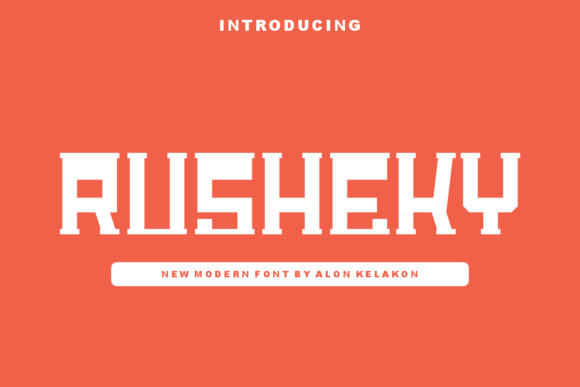
Journey into the realm of expressive typography with Rusheky Font, an exquisitely crafted display font that captivates audiences with its bold and striking presence. Designed by the visionary alonkelakon, Rusheky is not merely a collection of letters; it's an artistic odyssey that breathes life into your creative endeavors.
Unleash the boundless potential of Rusheky, a versatile font family that effortlessly adapts to a symphony of design projects. Whether you seek to craft captivating movie posters or ignite passion with album covers, Rusheky's dynamic character shines through, leaving an indelible mark on every project it graces.
Visualize your words taking center stage, demanding attention with Rusheky's commanding presence. Its bold strokes dance across the page, captivating audiences with their inherent strength and energy. Experience the thrill of crafting logos that exude confidence and sophistication, leaving a lasting impression that resonates with your target audience.
Rusheky's versatility extends beyond mere aesthetics. Dive into the world of personal letters, where emotions find their voice through Rusheky's expressive forms. Its carefully crafted curves and sharp angles weave together a tapestry of sentiments, adding a touch of elegance and charm to your heartfelt messages.
Add Rusheky to your digital toolbox, and embark on a creative journey like no other. Its boundless potential awaits your imagination, ready to transform your designs into masterpieces that captivate and inspire. Embrace the allure of Rusheky Font, and let your creativity soar to new heights.